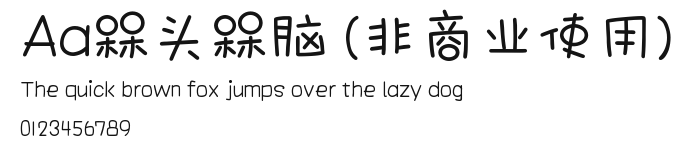
Aa槑头槑脑 (非商业使用) Preview
• Font Name: Aa槑头槑脑 (非商业使用)
• Font Style: 常规
• Font ID: 1.000;Aa;AaMeitoumeinao (Non-Commercial Use);2018
• Full Font Name: Aa槑头槑脑 (非商业使用)
• PostScript Name: AaMeitoumeinao(Non-CommercialUse)
• Character Count: 10124
• Designer: Aa
• Manufacturer: 翰美互通(厦门)科技有限公司
• Description: AaMeitoumeinao (Non-Commercial Use) is a fantastic font with excellent features designed for user interfaces and electronic communications.
About Aa槑头槑脑 (非商业使用).ttf
Aa槑头槑脑 (非商业使用).ttf is a modern, elegant sans-serif font designed for ultimate readability and visual harmony. Perfect for branding, headlines, web design, and print materials.